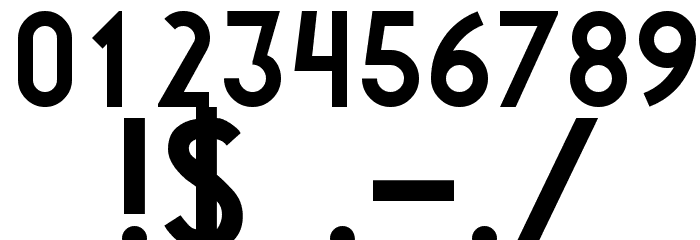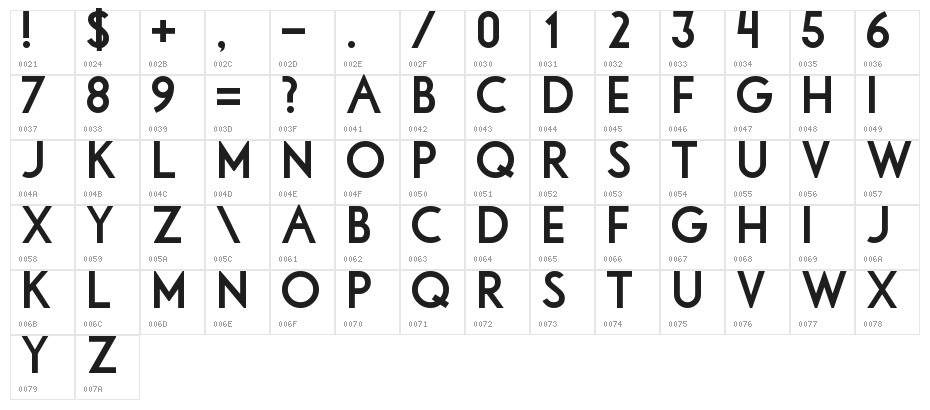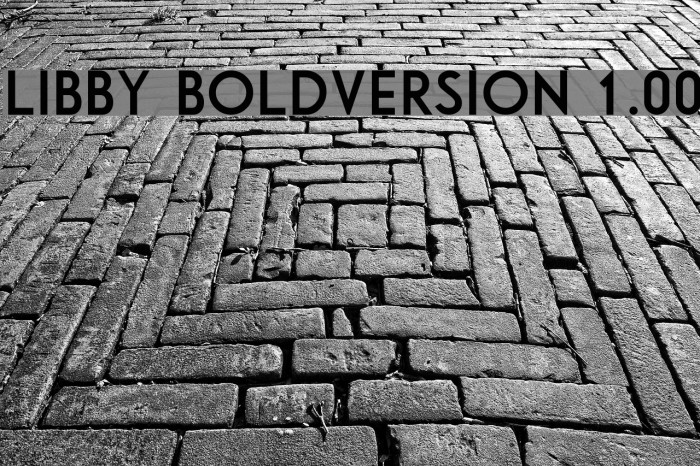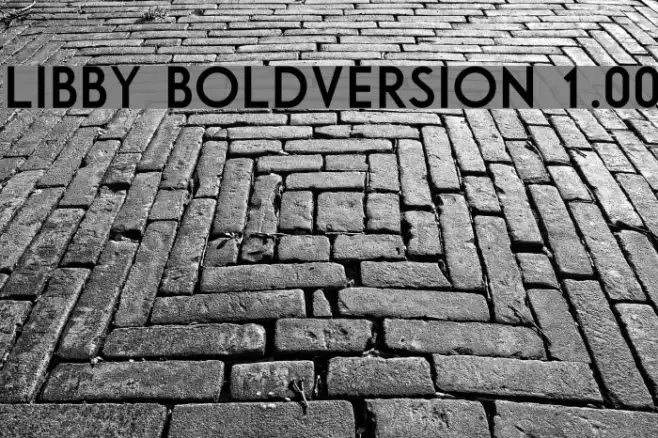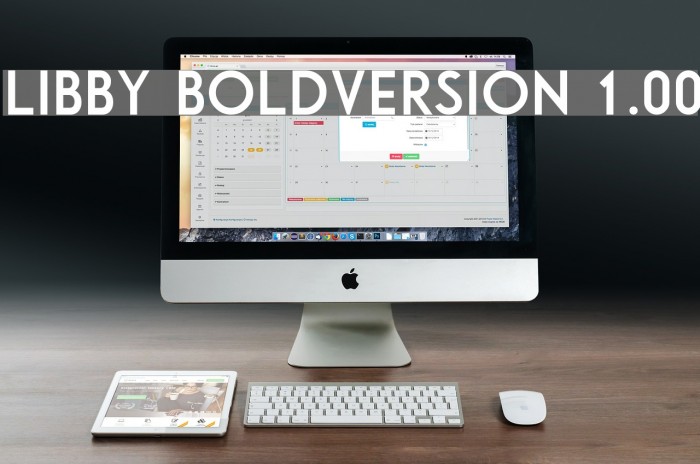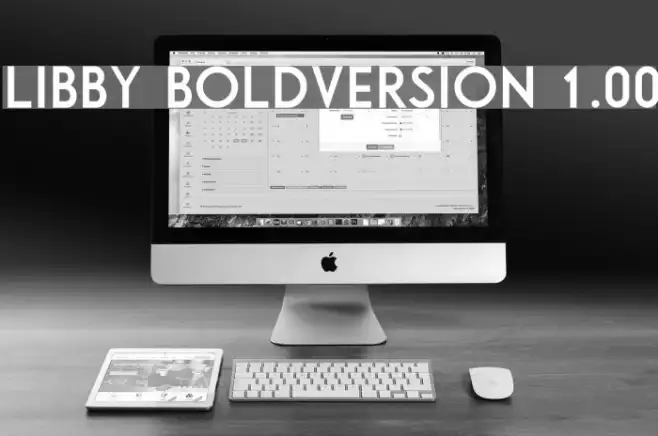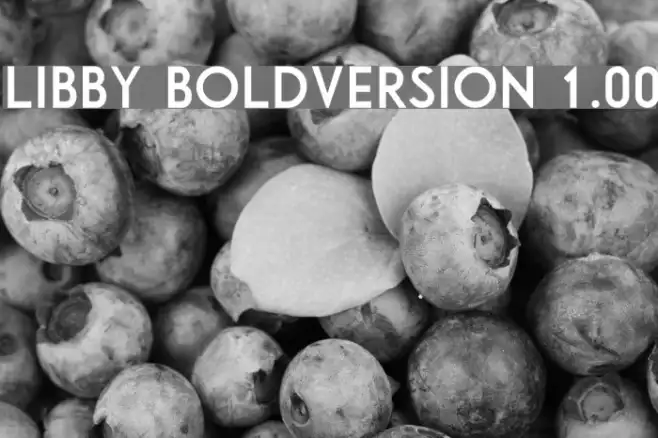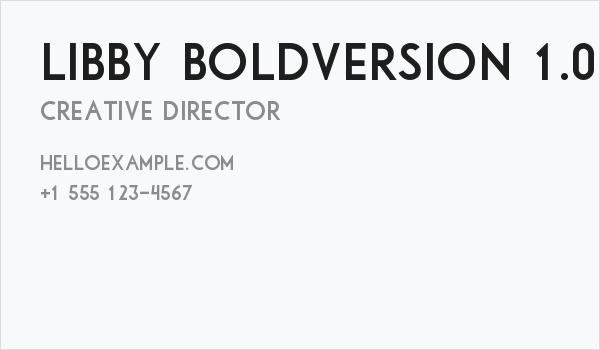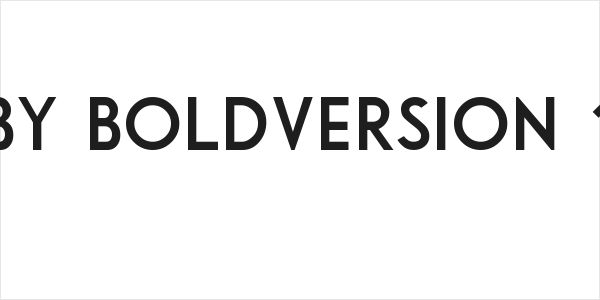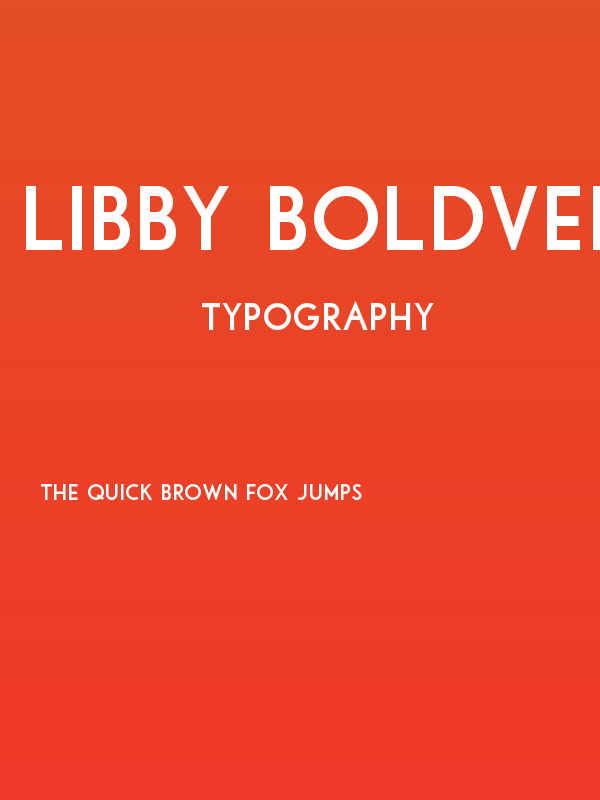
Libby Bold:Version 1.00 Font
Libby Bold:Version 1.00 Description
This font exhibits a bold and modern sans-serif style, characterized by clean lines and a strong presence. The uppercase and lowercase letters are well-proportioned, with a consistent stroke width that enhances readability. The numerals are distinct and align well with the overall design, making them suitable for various applications. Special characters are clearly defined, maintaining the font's cohesive look. The font's simplicity and clarity make it versatile for both digital and print media.
| Proposed Projects | Ideal for branding, advertising, headlines, and digital content where a modern and bold statement is needed. |